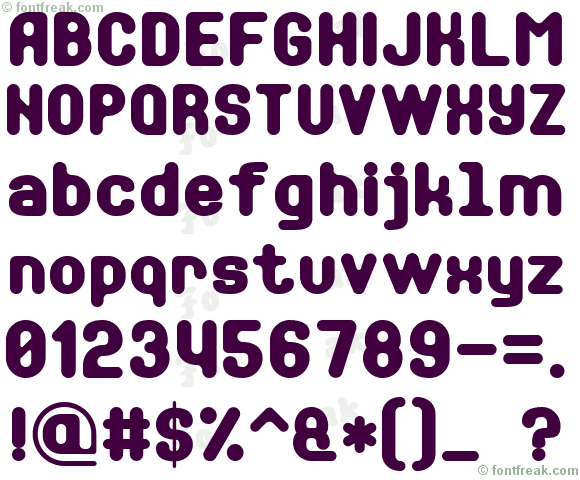
Soft Sans Serif 7
Soft Sans Serif 7 by Style-7 is a unique sans-serif font that embodies a gentle, approachable aesthetic, making it an excellent choice for various design projects. As a freeware font, it is accessible to anyone looking to enhance their typographic toolkit. The font features a rounded stroke weight that lends a soft quality to its characters, contributing to a friendly and inviting look. The minimal contrast between thick and thin strokes results in a harmonious appearance, while the spacious letter spacing ensures readability across different applications.
This versatile font is particularly well-suited for use cases such as children's book covers, where a playful feel is essential, or in modern restaurant menus, where clarity and style are both important. Its friendly nature makes it a great fit for branding small businesses seeking to convey a warm, welcoming image. Additionally, Soft Sans Serif 7 can be effectively utilized in social media graphics and promotional materials, appealing to content creators looking for a distinctive yet approachable typeface.
The target audience for this font includes graphic designers, small business owners, and content creators who value both aesthetics and functionality in their typography choices. The soft, rounded features of Soft Sans Serif 7 make it a standout option for those seeking to engage their audience with a modern and inviting vibe.
In conclusion, Soft Sans Serif 7 font free download provides a charming and versatile option for various design needs. Its unique characteristics and approachable style make it an excellent choice for projects that require a touch of warmth and friendliness. Whether for branding, digital content, or printed materials, this font is sure to leave a lasting impression.